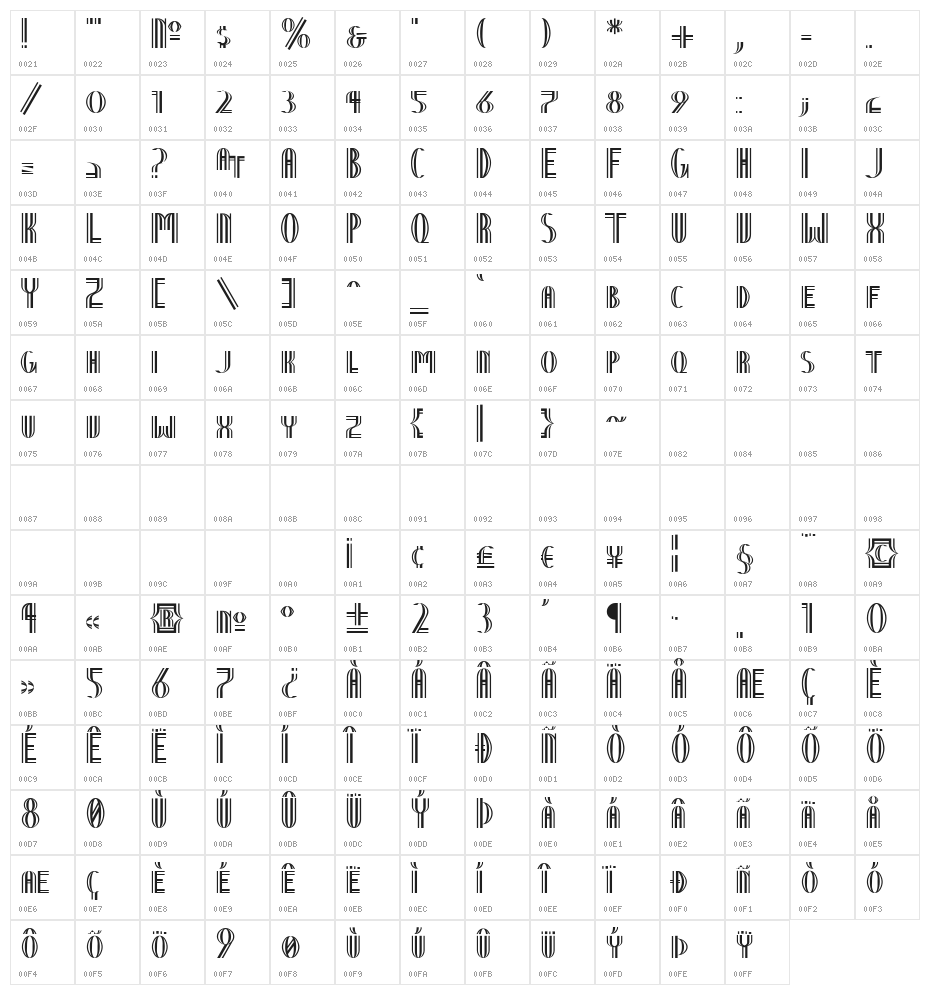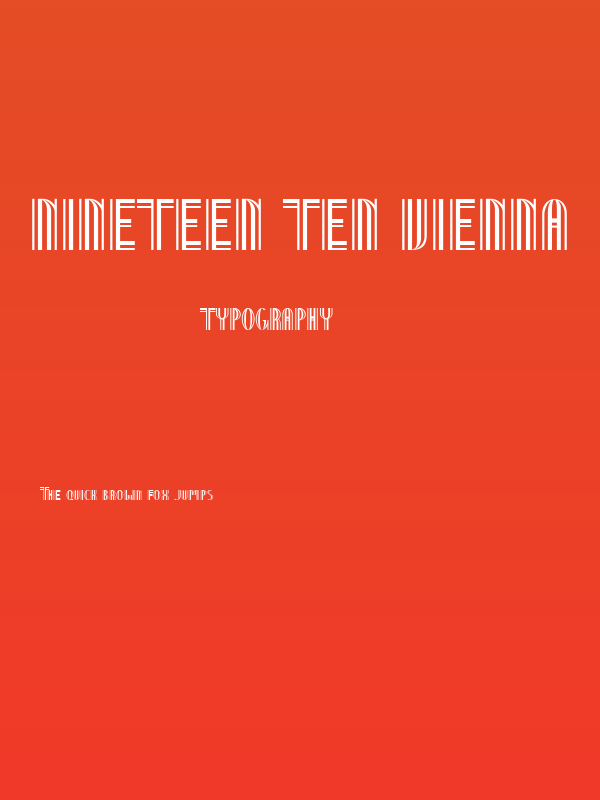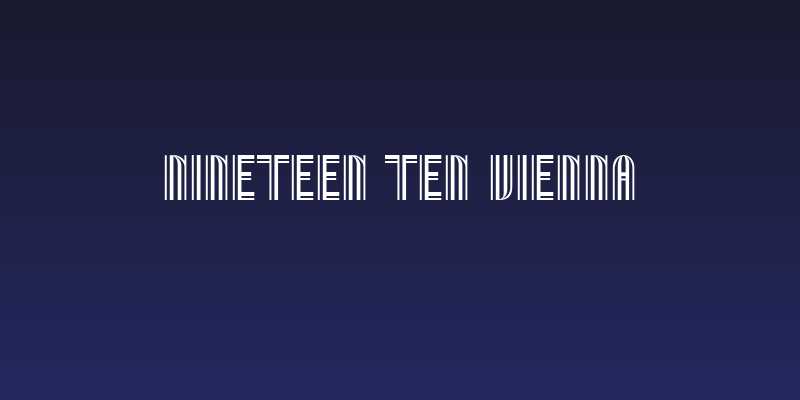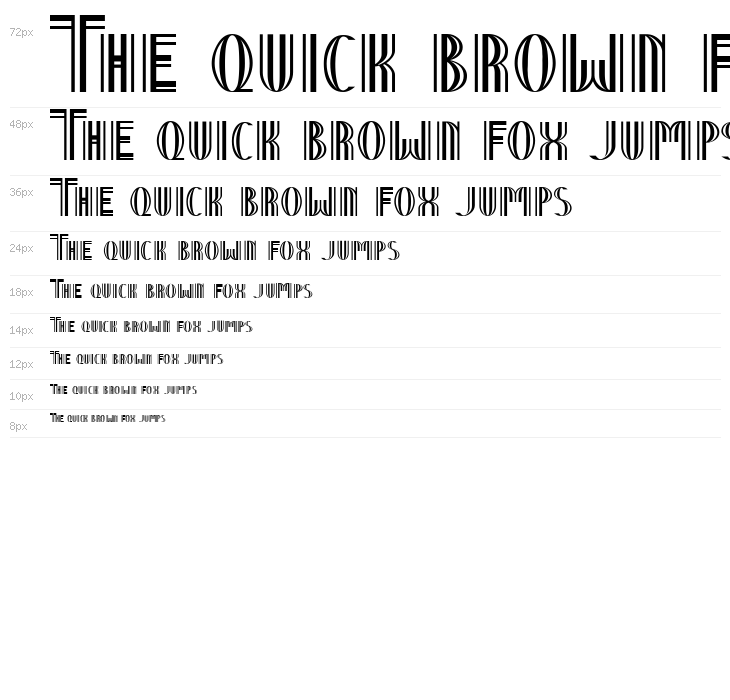
Nineteen Ten Vienna Font
Nineteen Ten Vienna Description
This font exudes a distinct Art Deco flair, characterized by its geometric and linear design. The uppercase letters are tall and narrow, with a strong vertical emphasis, while the lowercase letters maintain a consistent style, offering a harmonious blend of elegance and modernity. The numbers and special characters are crafted with the same attention to detail, ensuring a cohesive look across all elements. The font's unique style is both decorative and functional, making it suitable for a variety of creative applications.
| Proposed Projects | Ideal for branding, poster design, invitations, and any project seeking a vintage yet modern aesthetic. |